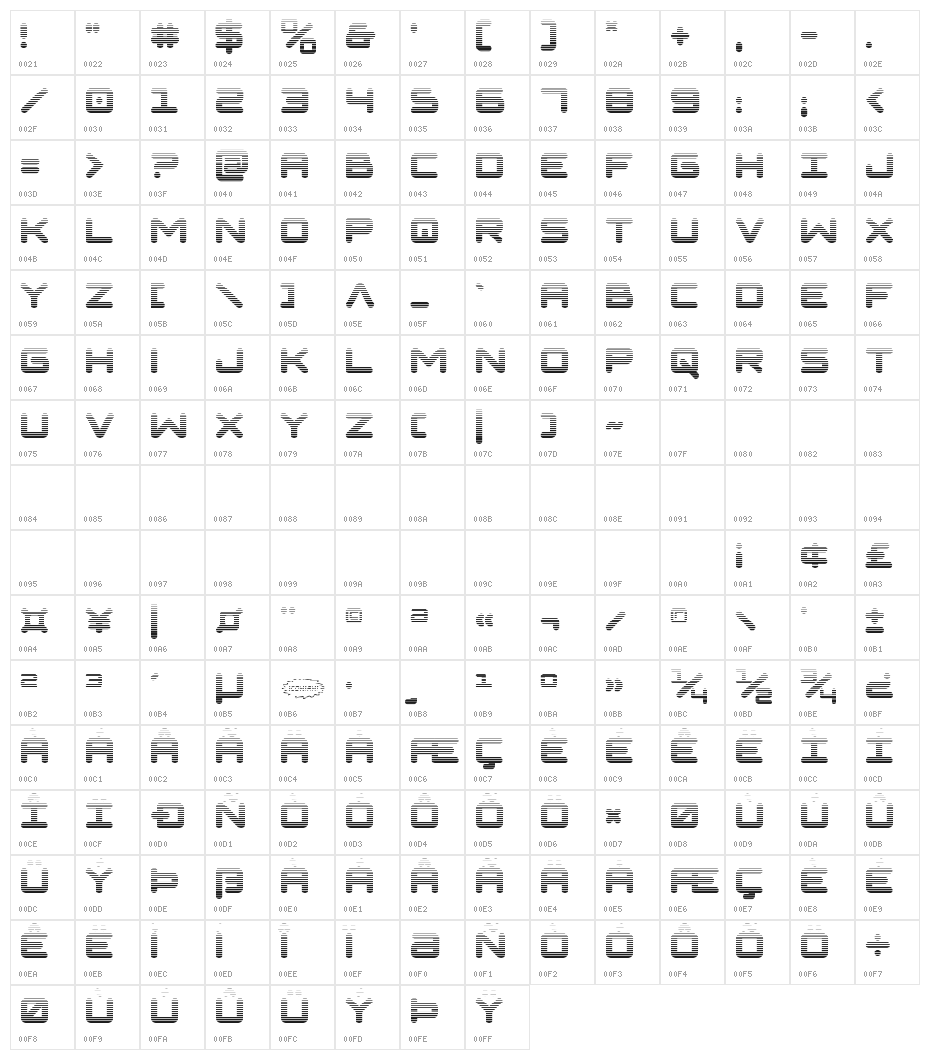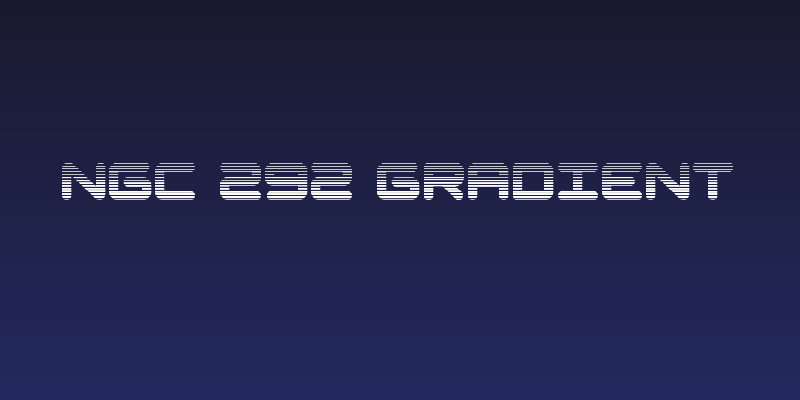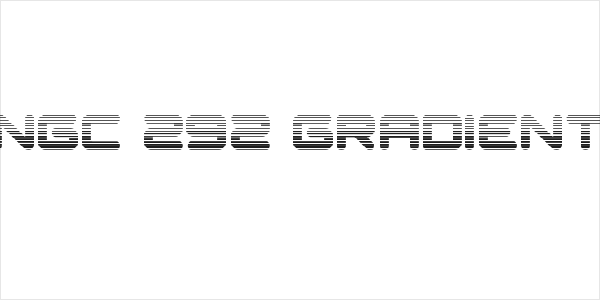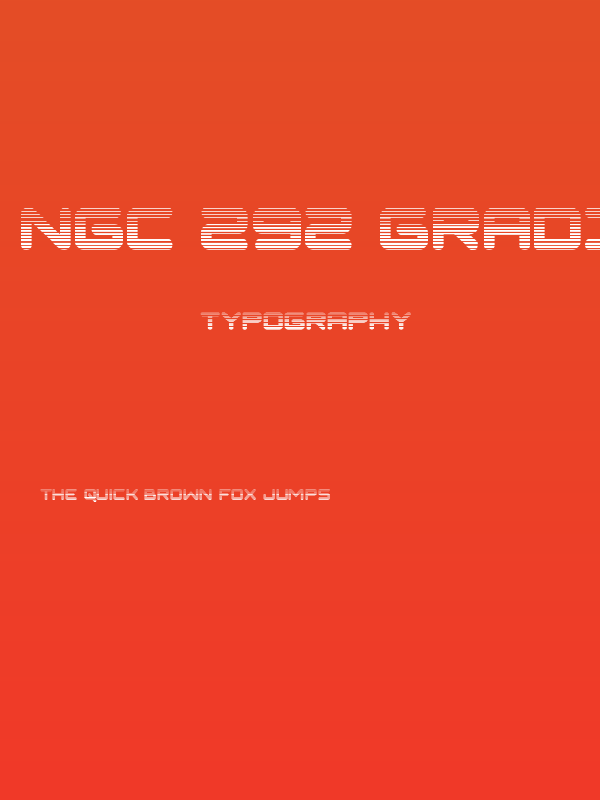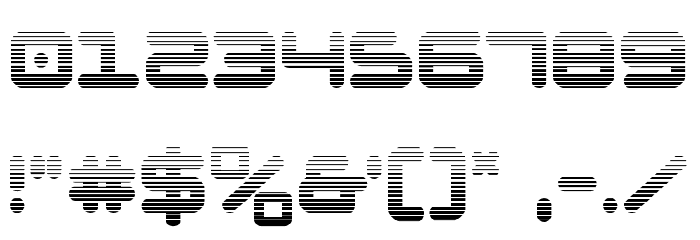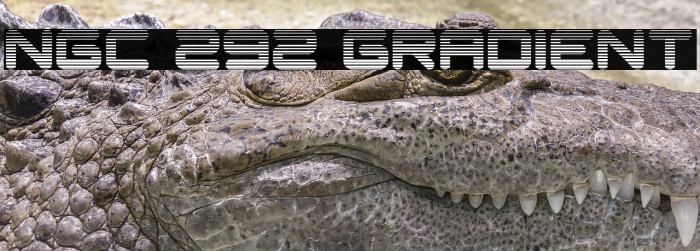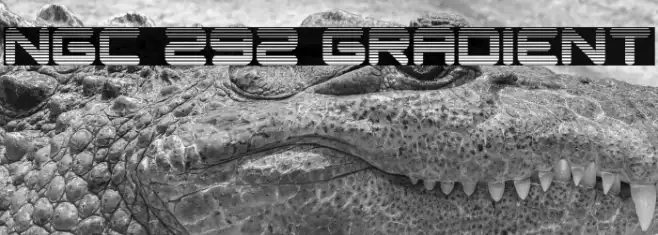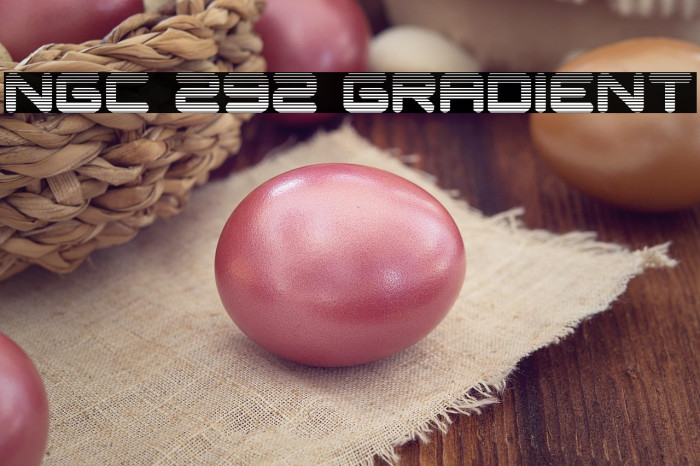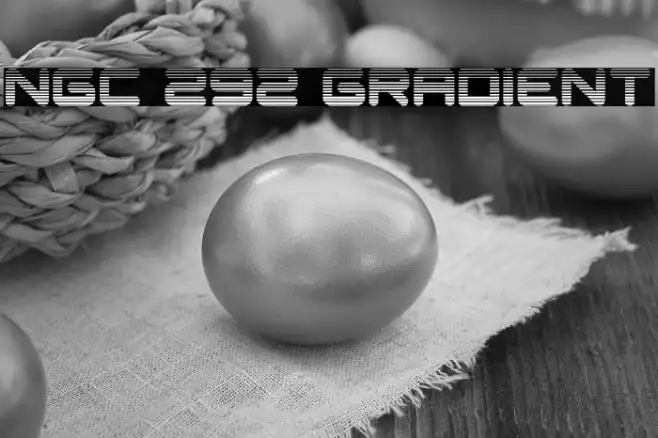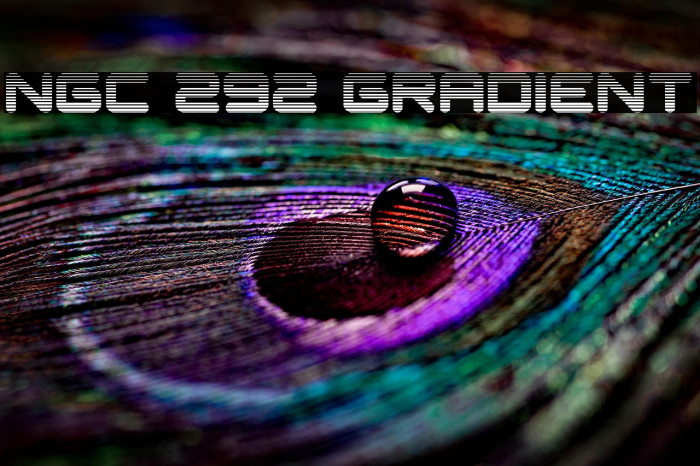
NGC 292 Gradient Font
NGC 292 Gradient Description
This font features a unique, futuristic design characterized by horizontal gradient lines that create a sense of movement and depth. Each character is constructed with a series of parallel lines, giving it a digital and modern aesthetic. The uppercase and lowercase letters maintain a consistent style, with sharp angles and geometric shapes. The numbers and special characters are equally stylized, ensuring a cohesive look across all elements. This font is ideal for projects that require a bold, eye-catching display with a technological or sci-fi theme.
| Proposed Projects | Ideal for sci-fi movie posters, tech company logos, video game titles, and futuristic-themed event invitations. |